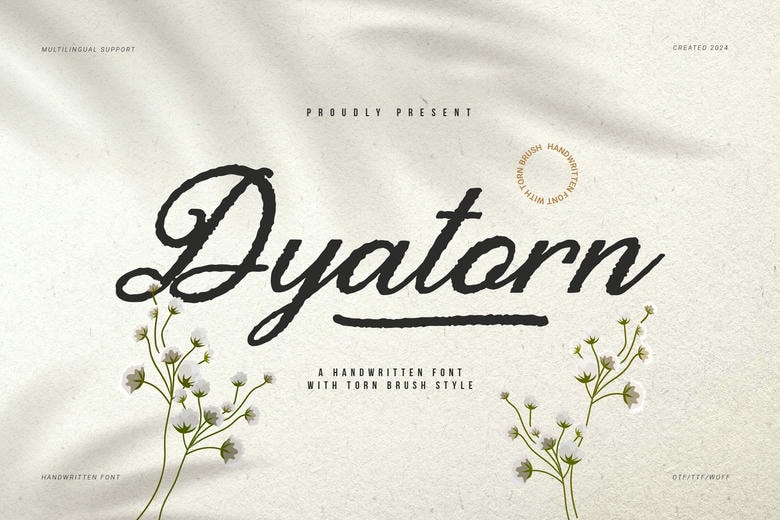
Dyatorn Font
Dyatorn is a fun, handwritten typeface with a brush impression. Relaxing and familiar, it is an ideal choice for invitations, cards and any creative job you are going to accomplish.
Dyatorn Handwritten Script Font